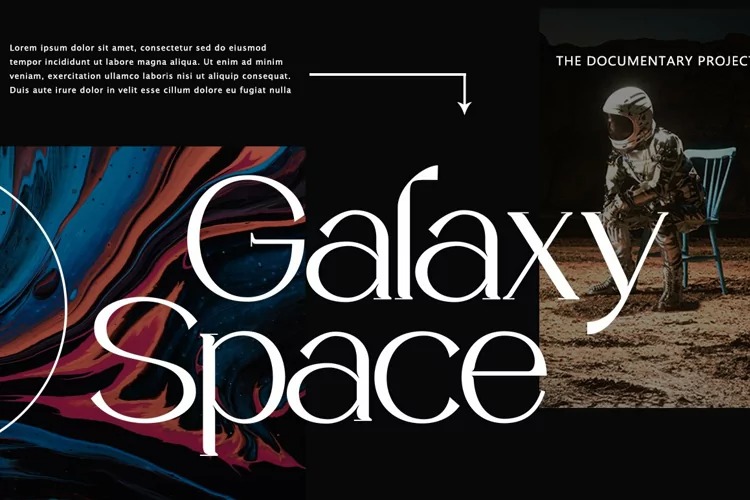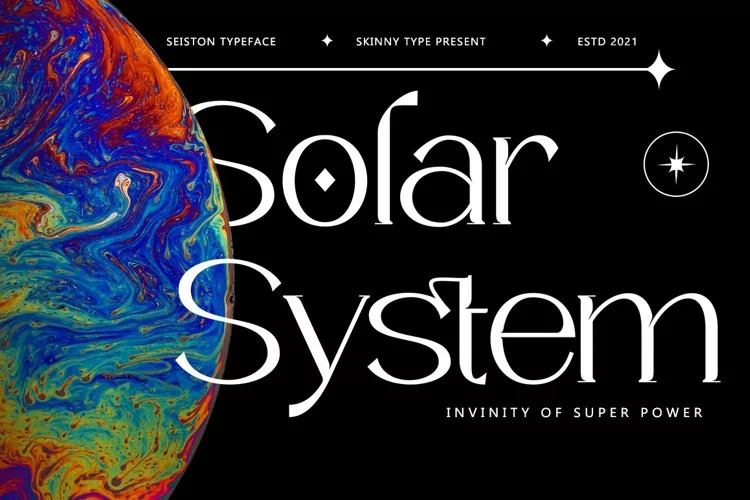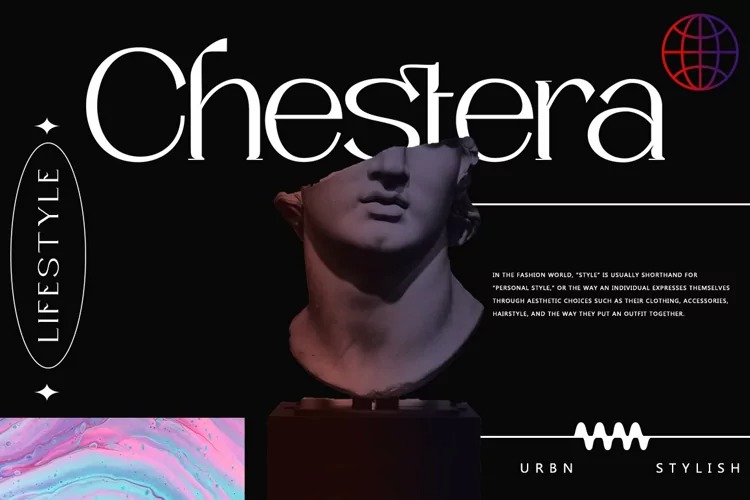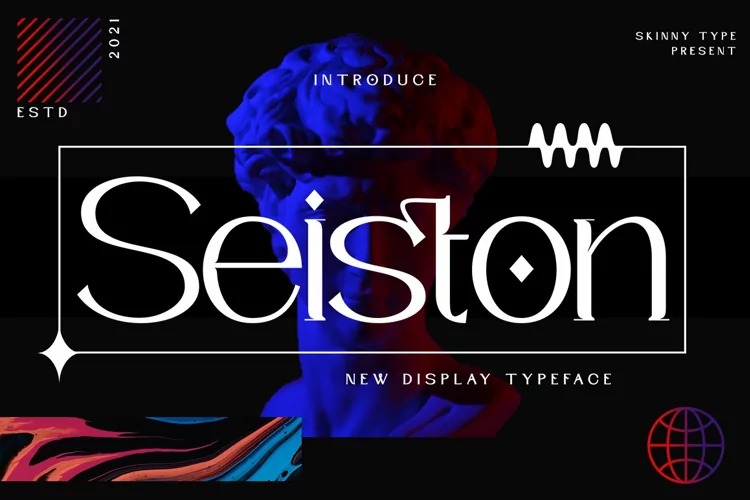
Seiston Font
Seiston Serif Font
This is a modern and elegant serif font crafted & designed by Skinny Art. Gallient has smooth edges, so this font gives this style an authentically handcrafted feel. Regista Grande is well-suited for advertising, branding, logotypes, packaging, titles, headlines and editorial design. This font comes in two styles, Regular and Italic Version.